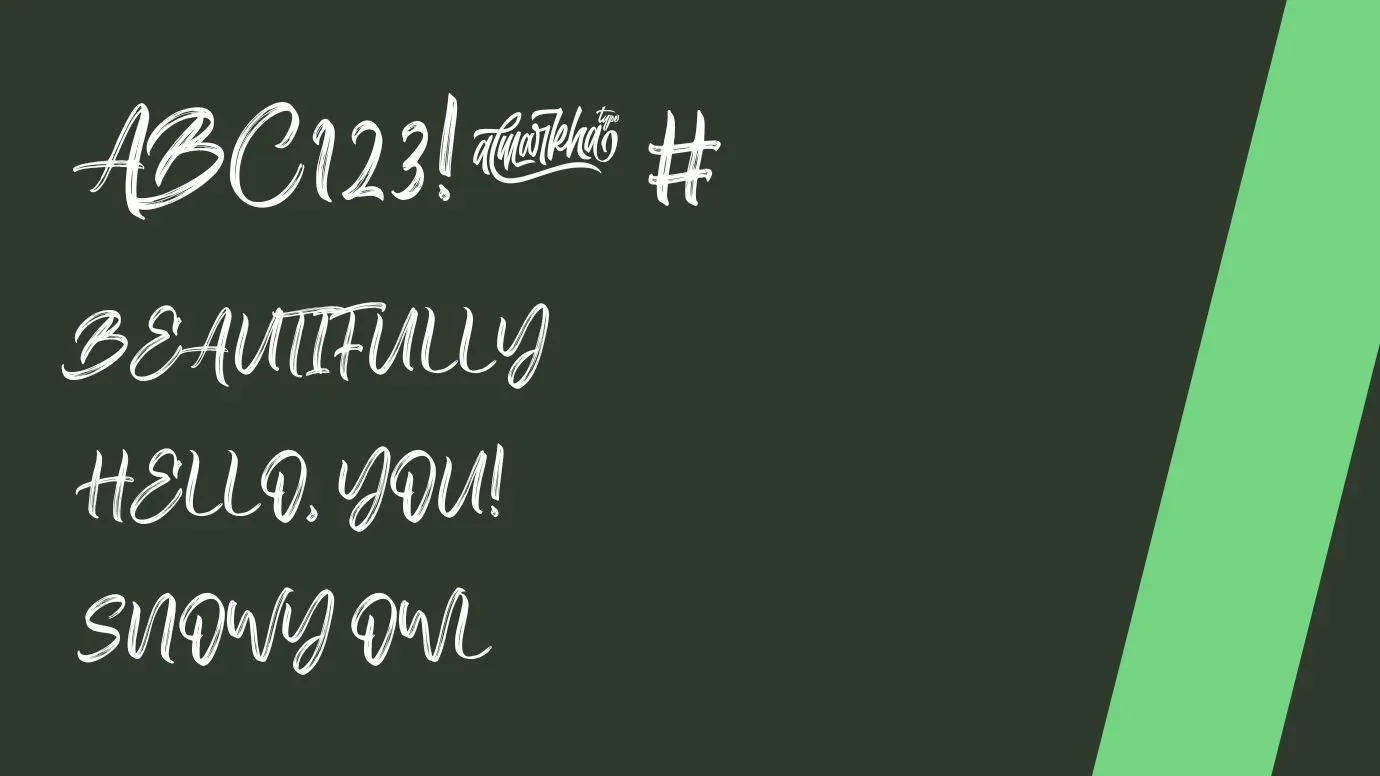
Someone Font is a relaxed and flowing handwritten typeface designed by the famous Almarkha Type with beautiful and sharp letters that make this typeface extremely modern, trendy, and elegant.
It is available in regular weight. A great choice for highlighting your design. The style may vary depending on the letters chosen. With its unique and stylish look, it adds a touch of nostalgia and sophistication to your designs. The glyphs of the typeface include many alternate character ligatures which give the typeface a wonderful look.
The Someone is a handwritten typeface. Its casual charm makes it appear wonderfully down to earth, readable, ultimately, and incredibly versatile. It will look outstanding in any context, whether it is being used on busy backgrounds or a standalone headline.
This is a relaxed and flowing handwritten typeface designed by the famous Almarkha Type with beautiful and sharp letters that make this typeface very stylish.
| Name | Someone Font |
| Designer | Almarkha Type |
What type of font is Someone Font?
This is a relaxed and flowing handwritten design by the famous Almarkha Type with beautiful and sharp letters.